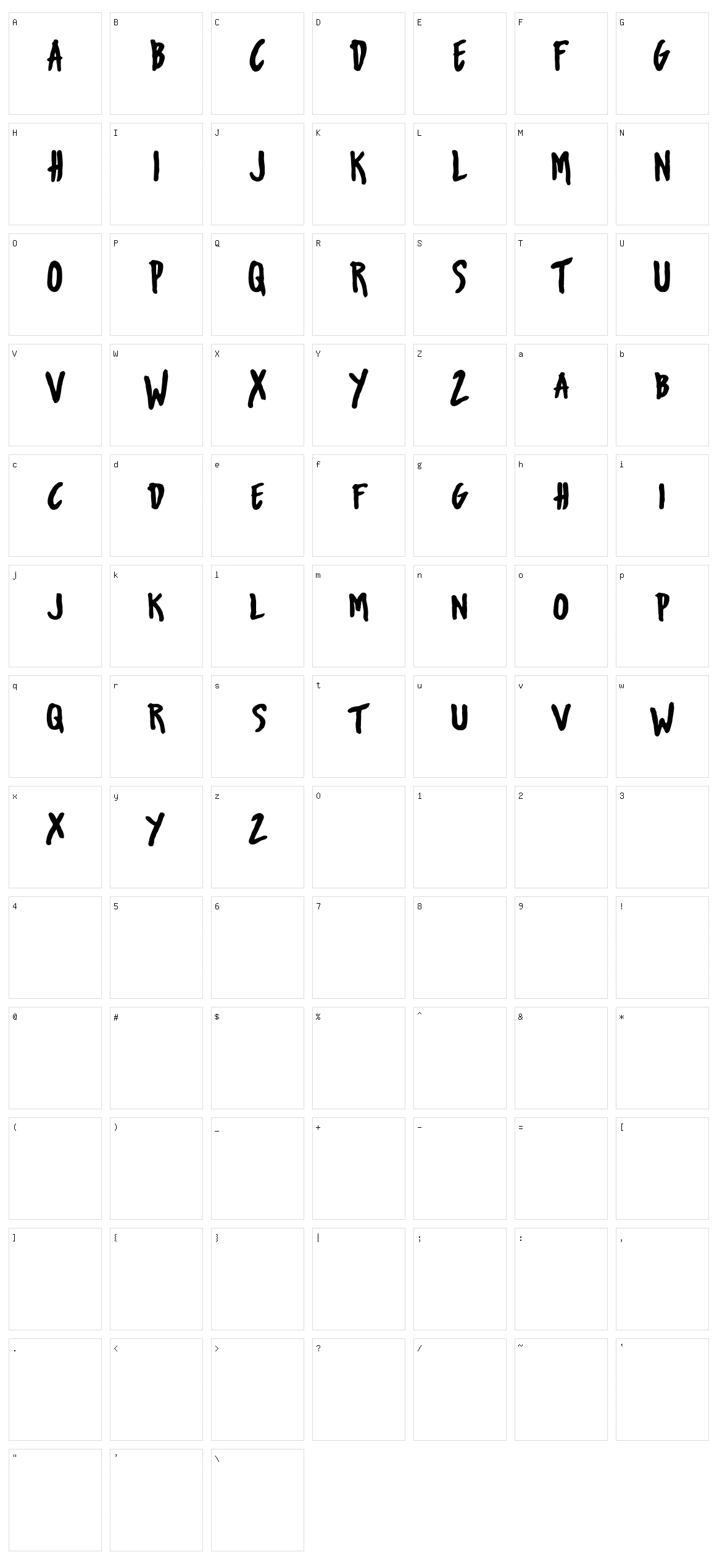
The free font Urban Oil Typeface is carefully designed by Eli Shore Productions, showcasing a thoughtful balance of creativity and usability and falls under the Script font style. When you download the ZIP file, it contains only 25.58 KB of font files, making it lightweight and quick to download. Please review the license details below to understand permitted usage and distribution rights. If license information is not available, we recommend using this font for personal projects only or contacting the author directly for commercial usage permissions.